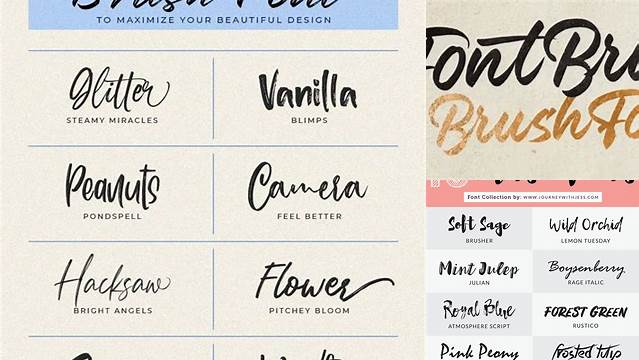
Unleash Creativity: Free Font Brush Guide
Are you a designer, artist, or creative enthusiast looking to add a unique touch to your projects? Do you want to create eye-catching designs that stand out from the crowd? Look no further than free font brushes! These versatile tools can transform your ordinary text into stunning works of art, adding texture, depth, and personality to your designs.
What are Free Font Brushes?
Free font brushes, guys, are digital brushes specifically designed for creating text with a hand-painted or textured appearance. Unlike traditional fonts that have clean and uniform letterforms, font brushes mimic the strokes of actual paintbrushes, markers, or other artistic tools. This gives your text a more organic, natural, and expressive feel. Think of it like calligraphy, but in a digital format! You can use these brushes in software like Adobe Photoshop, Illustrator, Procreate, or any other program that supports brush-based tools. They essentially allow you to "paint" your text, giving it a unique, handcrafted aesthetic that's hard to achieve with regular fonts. If you’re aiming for that authentic, artisanal touch in your designs, font brushes are definitely your new best friend. They’re super versatile and can be used for a wide range of projects, from logos and branding to social media graphics and even invitations. Imagine creating a wedding invitation with elegant, flowing script that looks like it was hand-lettered by a pro – that’s the power of free font brushes! Plus, the best part is that there are tons of free options available online, so you can experiment and find the perfect style for your project without breaking the bank. So go ahead, dive in and start exploring the wonderful world of font brushes!
Why Use Free Font Brushes?
There are countless reasons why free font brushes are a fantastic addition to your design toolkit. First and foremost, they offer a unique aesthetic that sets your work apart. In a world saturated with generic, overused fonts, font brushes provide a breath of fresh air, allowing you to create text that feels authentic and hand-crafted. This is especially valuable for projects where you want to convey a sense of personality, warmth, or artistic flair. For example, if you're designing a logo for a coffee shop, a font brush with a slightly rough, textured appearance can evoke the feeling of a cozy, artisanal environment. Or, if you're creating a poster for a music festival, a bold, energetic font brush can capture the excitement and vibrancy of the event. Another key advantage of font brushes is their versatility. They come in a wide variety of styles, from delicate scripts and elegant calligraphy to bold, grungy textures and playful hand-lettering. This means you can find a font brush to suit virtually any project, whether you're designing a website, a brochure, a social media post, or even a tattoo. Moreover, font brushes allow for a level of customization that's simply not possible with traditional fonts. You can adjust the brush size, color, opacity, and even the pressure sensitivity to create truly unique and personalized text effects. This gives you a greater degree of control over the final result and allows you to fine-tune your typography to perfectly match your vision. The ability to mimic natural media like paint, ink, and chalk is another huge plus. This allows you to create designs that have a tactile, organic quality, which can be particularly effective for projects that aim to connect with the audience on an emotional level. Think of the difference between a sterile, computer-generated font and a brush script that looks like it was lovingly handwritten – the latter has a far greater capacity to evoke feelings of warmth, nostalgia, and authenticity.
Where to Find Free Font Brushes
Finding free font brushes is easier than you might think! The internet is a treasure trove of resources for designers, and there are numerous websites offering high-quality brushes for free download. One of the best places to start your search is on websites dedicated to free design resources. These sites often have curated collections of font brushes, making it easy to browse and discover new styles. Some popular options include Brusheezy, MyFonts, and Creative Market (which often has freebies sections). These platforms usually have a wide variety of styles, so you’re bound to find something that fits your needs. Another great resource is the websites of individual designers and artists. Many creatives offer free brushes as a way to give back to the community or to promote their paid products. A simple Google search for "free Photoshop brushes" or "free Procreate brushes" will often turn up a wealth of results. Don't forget to check out online design communities and forums as well. These platforms are often hubs for sharing resources and tips, and you may find users posting links to free font brushes they've discovered. Reddit, for instance, has several subreddits dedicated to design resources, where you can ask for recommendations or browse existing threads. Social media platforms like Behance and Dribbble can also be valuable sources. Many designers showcase their work on these sites, and they sometimes offer freebies to their followers. It's worth following designers whose style you admire, as they may occasionally share free brushes or other design assets. When downloading free font brushes, it's crucial to pay attention to the licensing terms. Most free brushes come with a license that specifies how you can use them. Some licenses allow for both personal and commercial use, while others may restrict usage to personal projects only. Make sure you understand the terms before using a brush in your work to avoid any potential copyright issues. Always give credit to the creator of the brush whenever possible, especially if the license requires it. This is a simple way to support the design community and to show your appreciation for the free resources you're using. By exploring these various resources, you’ll quickly build up a collection of fantastic free font brushes that you can use to elevate your designs.
How to Use Free Font Brushes
Tips for Using Free Font Brushes Effectively
To get the most out of your free font brushes, it's essential to understand how to use them effectively. While they offer a unique aesthetic, they also require a bit of finesse to ensure your text is both visually appealing and legible. One of the most important tips is to consider the context of your design. The font brush you choose should complement the overall style and message of your project. For example, a delicate script brush might be perfect for a wedding invitation, but it would likely be inappropriate for a bold, attention-grabbing headline. Similarly, a grungy, textured brush might be ideal for a rock concert poster, but it might not be the best choice for a corporate brochure. Legibility is another crucial factor to keep in mind. While font brushes can add a lot of character to your text, they can also make it harder to read if used improperly. Avoid using overly ornate or complex brushes for large blocks of text, as this can strain the reader's eyes. Instead, reserve these types of brushes for headlines, logos, or other short pieces of text where readability is less of a concern. When working with font brushes, it's often helpful to experiment with different color combinations. The color of your text can have a significant impact on the overall look and feel of your design. Try using contrasting colors to make your text stand out, or use subtle, muted colors to create a more understated effect. You can also use gradients or color overlays to add depth and visual interest to your brush strokes. Spacing is another key element to consider when using font brushes. Adjust the letter spacing and line height to ensure your text is easy to read. Too little spacing can make your text look cramped and cluttered, while too much spacing can make it appear disjointed. A good rule of thumb is to err on the side of slightly more spacing rather than less. Kerning, the adjustment of space between individual letters, is also crucial for achieving a polished look. Pay attention to the spacing between each letter and make adjustments as needed to create a balanced and harmonious appearance. Many design programs have automatic kerning features, but it's often necessary to make manual adjustments to fine-tune the spacing. Finally, don't be afraid to combine font brushes with other fonts. Using a font brush for your headlines and a more traditional font for your body text can create a visually appealing contrast. Just be sure to choose fonts that complement each other in terms of style and weight. By following these tips, you can harness the power of free font brushes to create stunning and effective designs.
Examples of Creative Uses for Free Font Brushes
The possibilities for creative uses of free font brushes are virtually endless! Whether you're a graphic designer, illustrator, or hobbyist, these versatile tools can help you add a unique and personal touch to a wide range of projects. Let's explore some specific examples to spark your imagination. For branding and logo design, font brushes can be a game-changer. They allow you to create logos that feel handcrafted and authentic, which can be particularly effective for businesses that want to convey a sense of personality or artistry. Imagine a logo for a bakery using a playful, hand-lettered font brush, or a logo for a clothing boutique using an elegant, flowing script. The possibilities are vast, and the result can be a logo that truly stands out from the competition. Social media graphics are another area where font brushes can shine. In today's visually-driven world, it's crucial to create social media content that grabs attention and engages your audience. Font brushes can help you do just that by adding a unique and eye-catching element to your graphics. Use them to create quotes, announcements, or promotional materials that are sure to stand out in a crowded feed. For wedding invitations and stationery, font brushes are a classic choice. They can add a touch of romance and elegance to your designs, creating a sophisticated and memorable impression. Think of invitations with flowing calligraphy scripts, save-the-date cards with playful hand-lettering, or thank-you notes with a personalized touch. Font brushes can transform your stationery into cherished keepsakes. In the realm of poster and flyer design, font brushes can help you create visually striking and attention-grabbing visuals. Whether you're promoting a concert, a festival, or a local event, the right font brush can make your poster truly pop. Use bold, textured brushes for a grungy, energetic feel, or opt for elegant scripts for a more sophisticated look. Website design is another area where font brushes can be incorporated effectively. Use them for headlines, banners, or other key elements to add a touch of personality and visual interest to your site. Just be sure to use them sparingly and in a way that doesn't compromise the overall legibility and usability of your website. Finally, don't underestimate the power of font brushes for personal projects and creative expression. Whether you're creating a digital illustration, a hand-lettered quote, or a personalized greeting card, font brushes can help you bring your ideas to life in a unique and artistic way. They're a fantastic tool for experimenting with different styles and techniques, and they can help you develop your own signature aesthetic. By exploring these examples, you'll start to see the incredible versatility of free font brushes and the endless creative possibilities they offer.
Free font brushes are a powerful tool for any designer or creative individual looking to add a unique and expressive touch to their work. They offer a vast range of styles and textures, allowing you to create text that feels hand-crafted, authentic, and full of personality. Whether you're designing a logo, creating social media graphics, or crafting wedding invitations, font brushes can help you elevate your designs and stand out from the crowd. By understanding how to find, use, and apply font brushes effectively, you can unlock a world of creative possibilities and transform your typography into works of art. So go ahead, explore the world of free font brushes and unleash your creative potential! Remember to experiment, have fun, and let your imagination guide you. The results will be well worth the effort, and you'll be amazed at the stunning typography you can create with these versatile tools. Happy designing, guys! I hope this article has inspired you to dive into the world of font brushes and discover the magic they can bring to your projects. Don't be afraid to try new things, mix and match different styles, and develop your own unique approach to using these fantastic resources. The design world is constantly evolving, and font brushes are a perfect way to stay ahead of the curve and create work that truly captivates and inspires. So go forth and create something amazing!